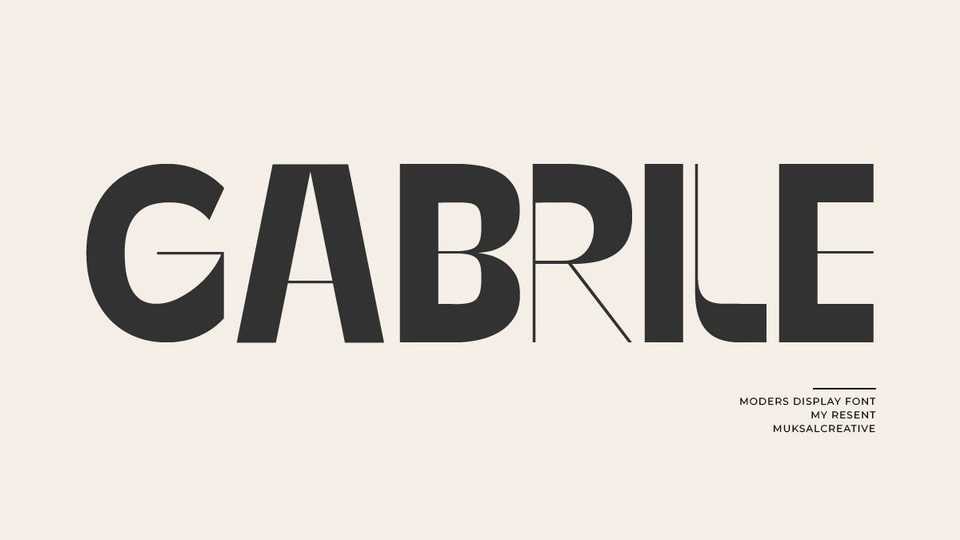
Download Gabriele font, a modern display typeface with high contrast letterforms. Perfect for editorial projects, logo design, branding, headers, or simply as a stylish text overlay to any background image.
Designer: Muksal Creative